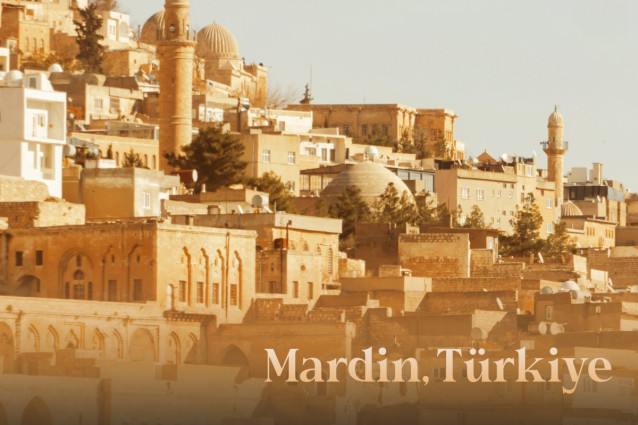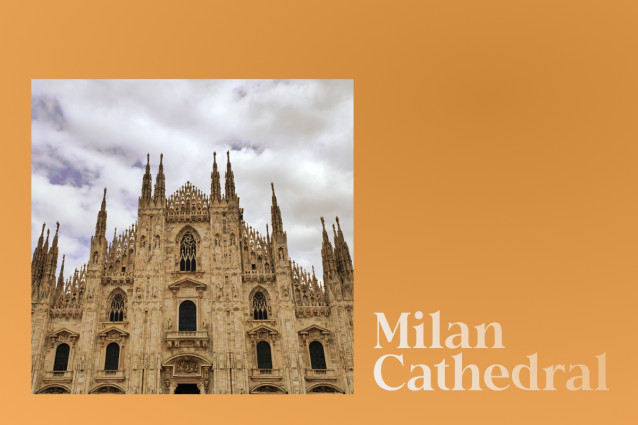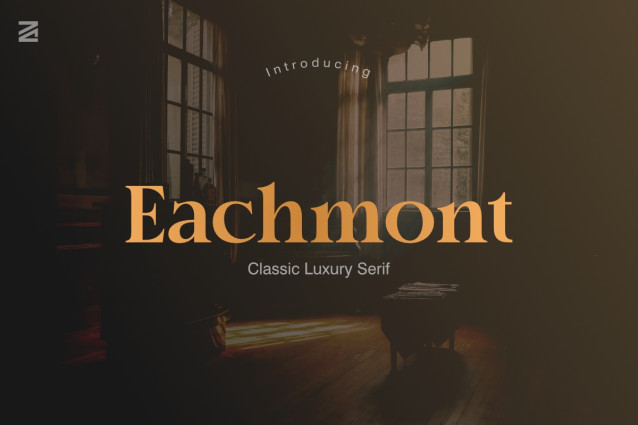
Eachmont is a timeless, high-end classic luxury serif font designed by Zia Creative Studio. Crafted with sophisticated curves and refined proportions, it brings an aura of elegance, prestige, and timeless beauty to modern editorial design, high-fashion branding, and luxury product identities.
Perfect for:
- High-End Luxury Branding & Logo Design
- Fashion Magazines & Editorial Layouts
- Perfume, Cosmetics & Premium Packaging
- Wedding Invitations & High-Class Event Stationary
- Elegant Signage & Hotel/Resort Visual Identities